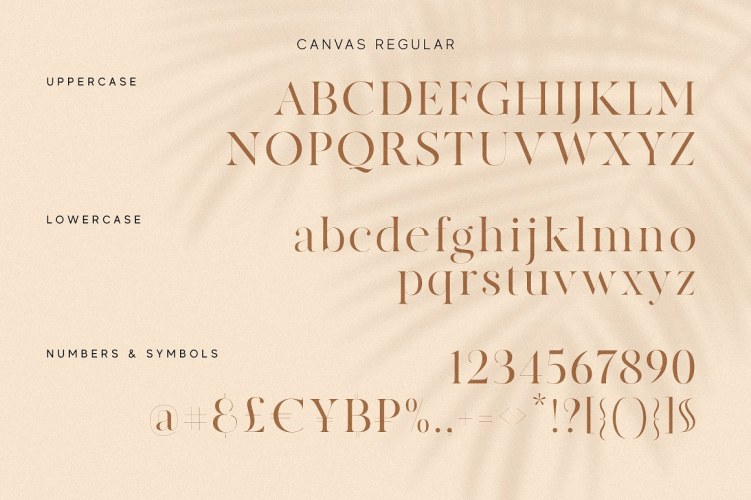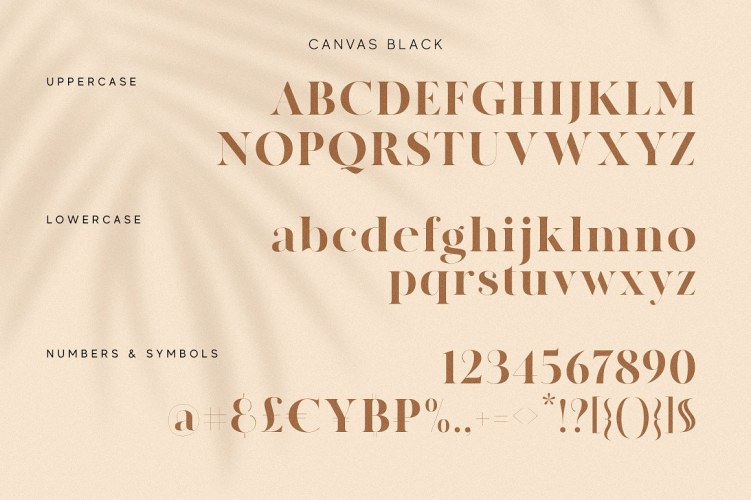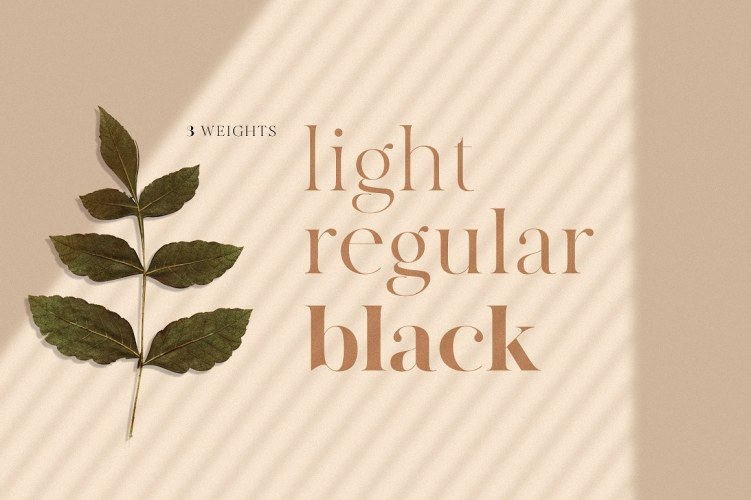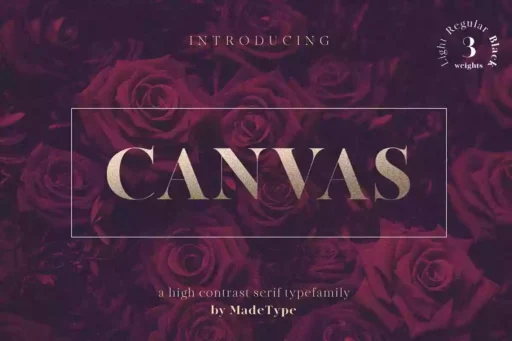
MADE Canvas Font
MADE Canvas is a high contrast serif font family by Madetype with clear contrast of thick and thin lines that has a contemporary interpretation of the “Didoni” style. It…
MADE Canvas is a high contrast serif font family by Madetype with clear contrast of thick and thin lines that has a contemporary interpretation of the “Didoni” style. It has a clean and elegant appearance and gives a new flair to traditional typography styles. The MADE Canvas family includes three distinct weights: There are three types of cake, namely, Light, Regular, and Black. All fonts have extremely fine hairlines, making the font delicate but not less effective.
This font is handy for many different purposes and tasks in design work and business. Whether you are working on designing fashion editorials or the layouts of magazines or logos or even the branding of a company, MADE Canvas brings in elegance and style. Due to the high level of detailing, it is suitable for use in weddings, quotes, blogs, posters, and advertisements. With its simple and yet bold design the font and its contrast will be noticeable in any print or web-based medium.
MADE Canvas has all the uppercase and lowercase alphabets, numerals, and special characters to support good typography. Also, it is available in multiple languages to help with projects that need translation to different languages and countries.
Where MADE Canvas Font works best
MADE Canvas Font gives long-form text a classic, trustworthy rhythm — ideal for magazine spreads, annual reports and book interiors.
Pair MADE Canvas Font with generous letter-spacing for wordmarks in fashion, hospitality, wine and jewellery branding.
Use MADE Canvas Font for slide titles in Keynote, PowerPoint or Google Slides to add authority without looking dated.
What is MADE Canvas Font good for?
MADE Canvas Font is a Serif Fonts typeface tagged Bold, Classic, Clean, Contemporary. It works well for headlines, logos, posters, social media graphics and branding projects that need a distinctive serif fonts look.